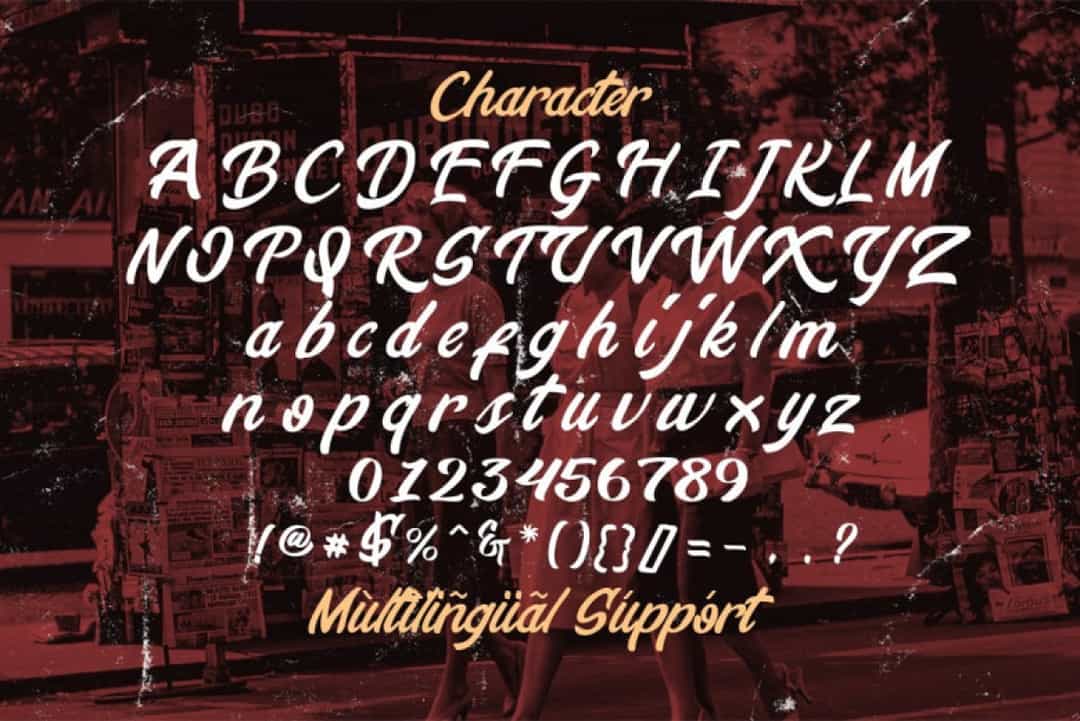
Discover Stringlabs Creative Bold Script Font, part of the Calligraphy Script collection—a versatile and unique font perfect for adding a personal touch to your projects. Download it for free and enjoy crafting designs with style, from invitations to social media posts. This font is available exclusively for personal use, giving you the freedom to create without limits. Unlock your creativity with Stringlabs Creative Bold Script Font today!
Stringlabs Creative is a script type font and it is quite sharp and its appearance is that of calligraphy. It is a very distinctive font design, with a cooperation with elegant style. It will be appropriate for any use that one wants to impart a meeting that is both classy and stylish.